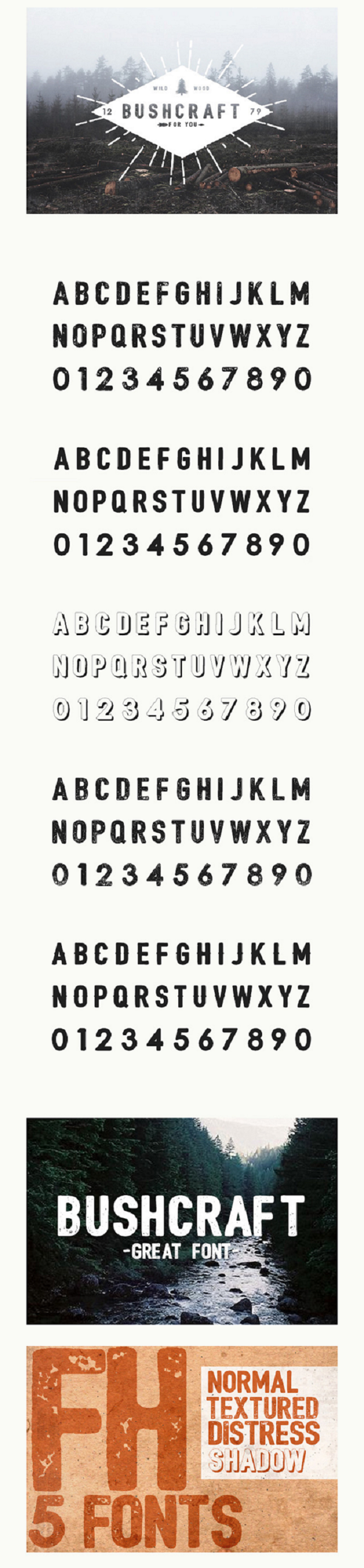
Bushcraft is a font family of 6 beautiful hand-drawn faces in OTF format. Inspired by vintage hand lettering sans able to improve your next project: print graphics, logos, badges, t-shirts etc. We thank Rachid Aitouaissi for providing us with this wonderful freebie.